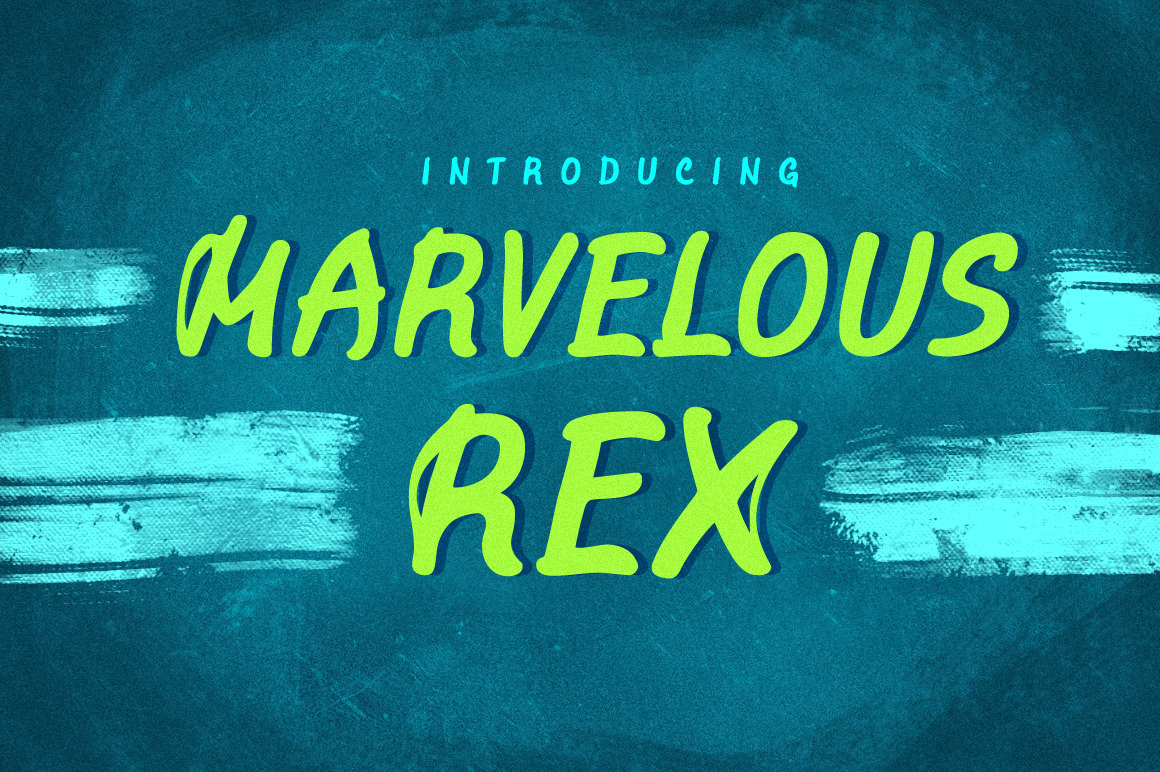
Marvelous Rex ǀ 4 Fonts
Marvelous Rex font family by Pilcrowd
Marvelous Rex is a versatile hand-drawn typeface inspired by comic book lettering, and can be used in a variety of ways.